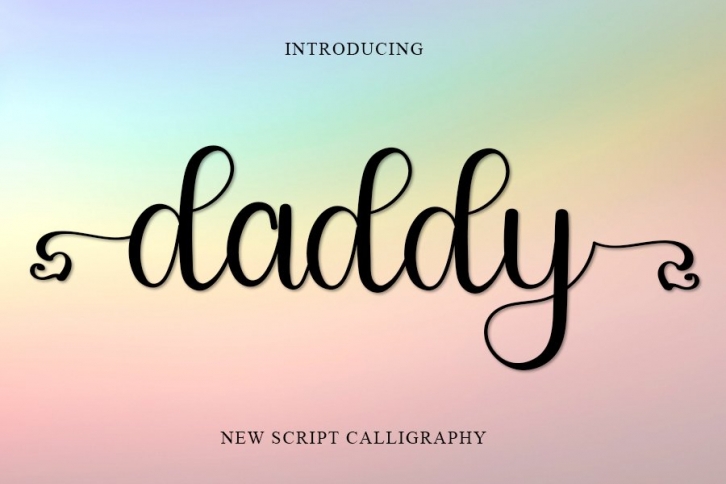
Daddy is a trendy and unique font with an authentic style. It was designed by FreshType INK and it's a great choice for creative people who need such a font. It was released on November 4, 2022 and the file size is 11.21 MB. Daddy will add an organic vibe to any design idea!